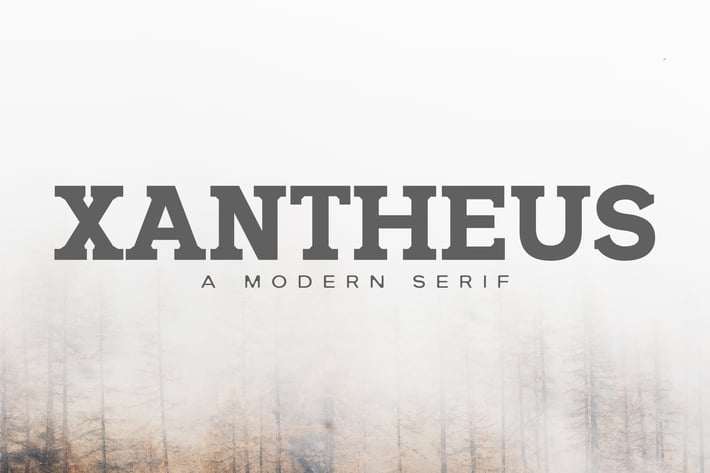
Xantheus Serif Font Family
Xantheus Serif Font Family is a modern rounded serif font inspired with slab style. Xantheus comes in 2 weights with multilingual support. It is perfect for headlines, logotypes, signage, advertising, magazine, logos, invitations, texts, posters, notices, titles, name card, web layouts, headers, branding, weddings, social media, product design, stationery, and other any business related.
- Font Weight: Regular and Round
Font Features:
- Uppercase Letters
- Lowercase Letters
- Number and Punctuation